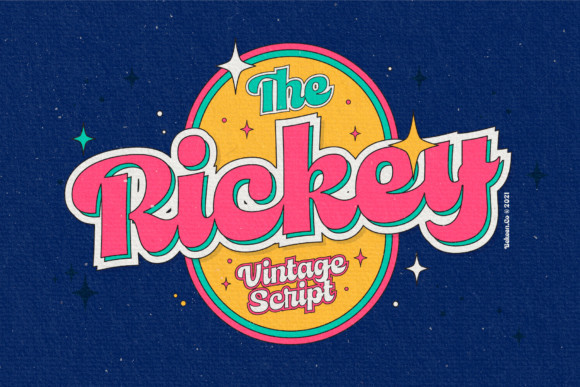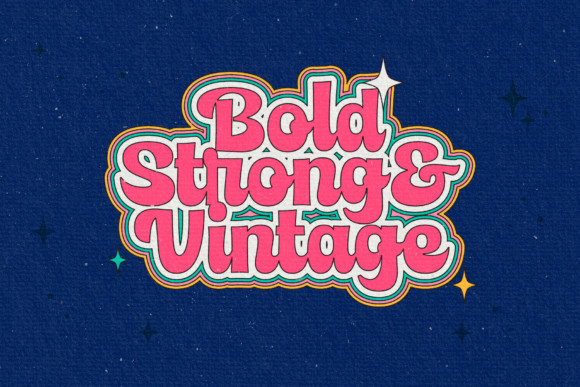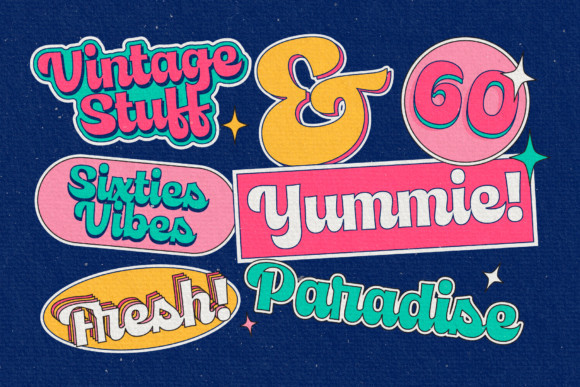
Rickey Font
Rickey is a cool, chunky lettered, retro handwritten font. This font reads as strong, confident, and dynamic and can add tons of nostalgic character to your designs.